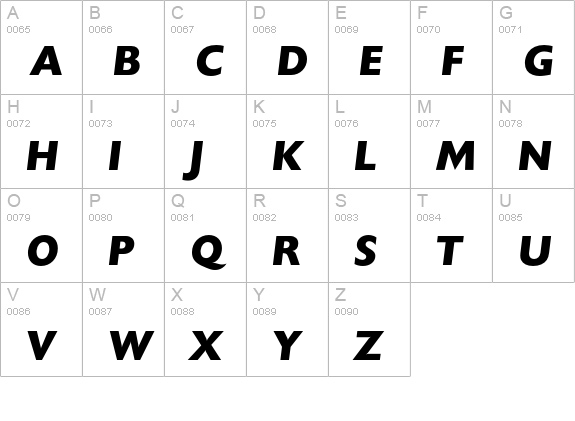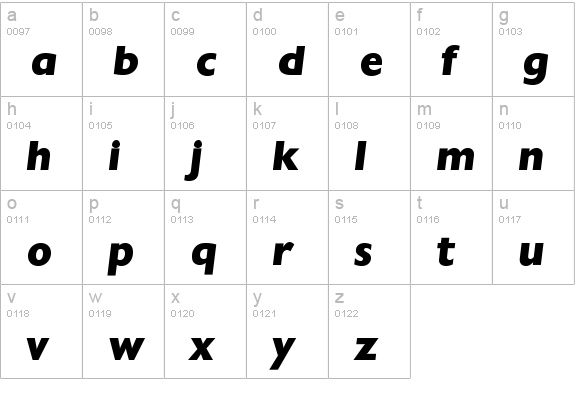
Chantilly-ExtraBoldIta Font Details
Chantilly-ExtraBoldIta font is a stunning display typeface that exudes elegance and modernity. Its bold and italicized design makes it perfect for eye-catching headlines, logos, and branding projects. With its sleek and sophisticated appearance, Chantilly-ExtraBoldIta font is sure to make a statement in any design. What sets this font apart is that it is not only visually striking but also completely free to download. Whether you are a designer looking to add a touch of flair to your project or a business owner in need of a standout logo, Chantilly-ExtraBoldIta font is the perfect choice. You can easily access and download this font at FontsMarket.com, making it a convenient and cost-effective option for all your design needs. Elevate your projects with the timeless charm of Chantilly-ExtraBoldIta font today.